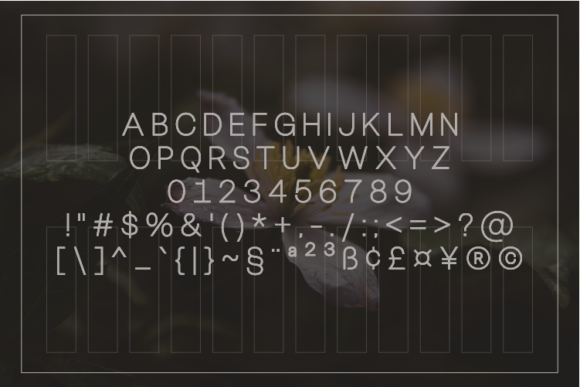
Introduction to Ponystillo Font
As designers, we’ve all been there – staring at a blank page, trying to bring our creative vision to life. The perfect font can make all the difference, elevating our design from bland to grand. And that’s where the Ponystillo Font comes in – a game-changing, contemporary sans serif typeface that’s sure to take your creative project to the next level.
Key Features of Ponystillo Font
- Unique and playful design, perfect for creative projects and designs.
- Includes a wide range of characters, including uppercase and lowercase letters, numbers, and special symbols.
- Designed to be highly legible, even at small font sizes, making it ideal for digital and print projects.
Honest Review: Ponystillo Font
- High-quality glyphs that render well in various sizes and resolutions ✨
- Wide range of languages supported, making it a great resource for international design projects ✨
- Limited font styles, which may not be suitable for projects requiring a lot of variety ⚠️
- Some users may find the font too playful or whimsical for certain design applications ⚠️
How to Use Ponystillo Font
Using Ponystillo Font in Design Applications
You can use the Ponystillo Font in a variety of design applications, including:
- PowerPoint/Word: Use the Ponystillo Font to add a touch of creativity to your presentations and documents.
Tips for Getting the Most Out of Ponystillo Font
To get the most out of the Ponystillo Font, experiment with different font sizes, colors, and arrangements to create unique and eye-catching designs.
Common Use Cases for Ponystillo Font
The Ponystillo Font is ideal for creative projects, such as:
- Illustrations
- Typography-based designs
- Brand identity
When to use: Branding materials, packaging designs, and other creative projects that require a modern and stylish look. Great Vibes Font is a great alternative to Ponystillo Font as it offers a more modern and sleek look, while still maintaining a similar level of sophistication.
Carolyna Pro Font is a beautiful script font that’s perfect for designers who want to add a touch of sophistication to their creative project. This font is available for free download and features a transparent background, making it easy to use with any design resource. Carolyna Pro Font is ideal for designers who want a high-quality font that’s both elegant and refined.